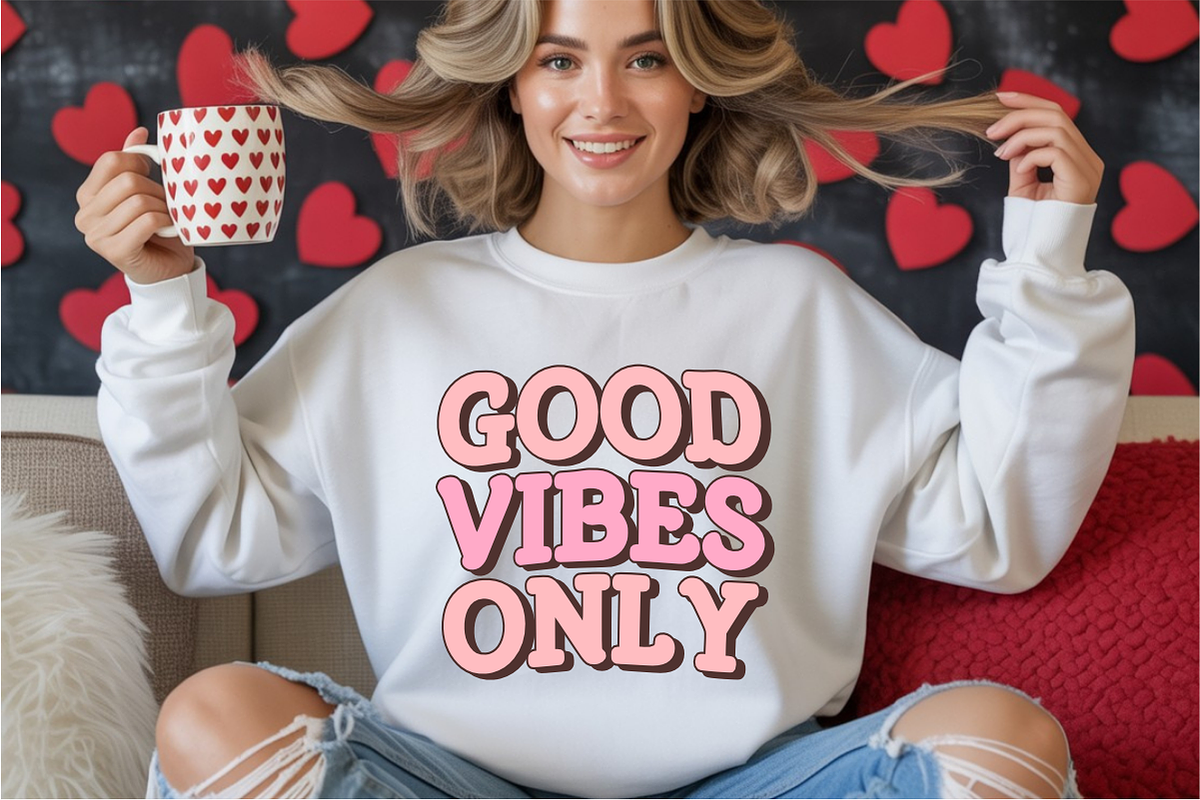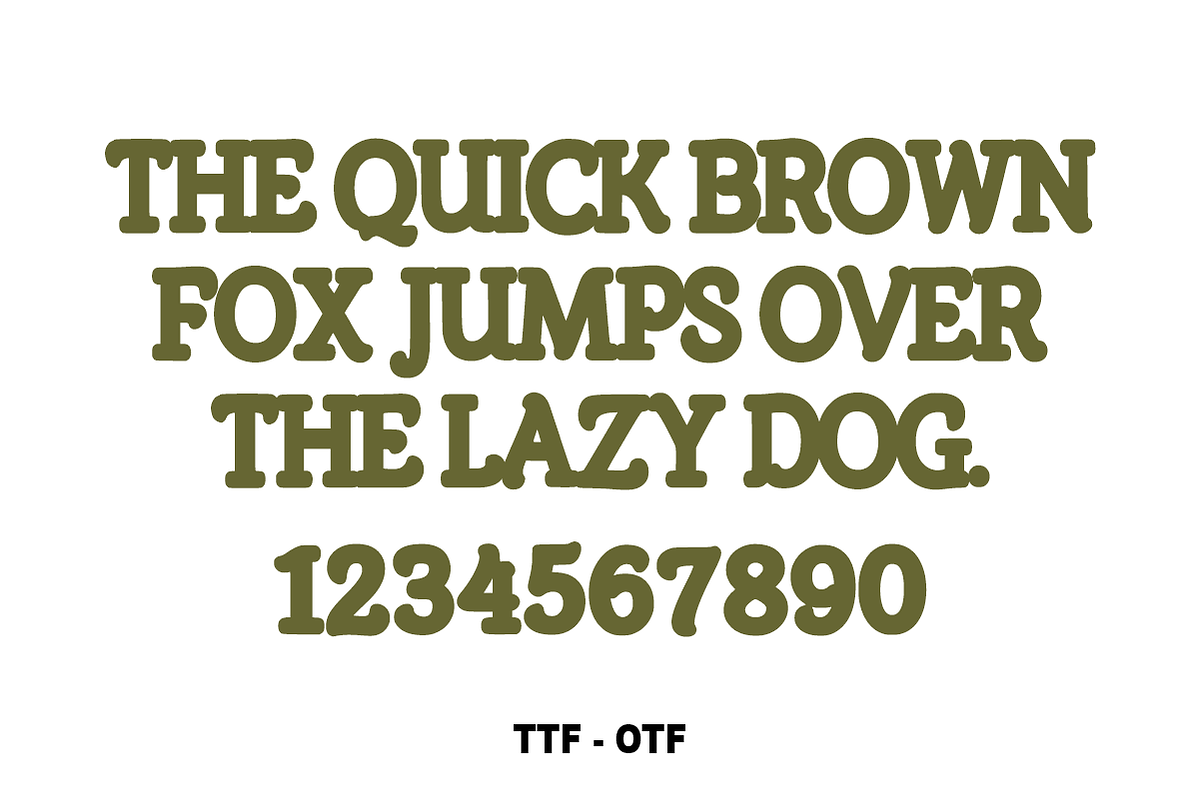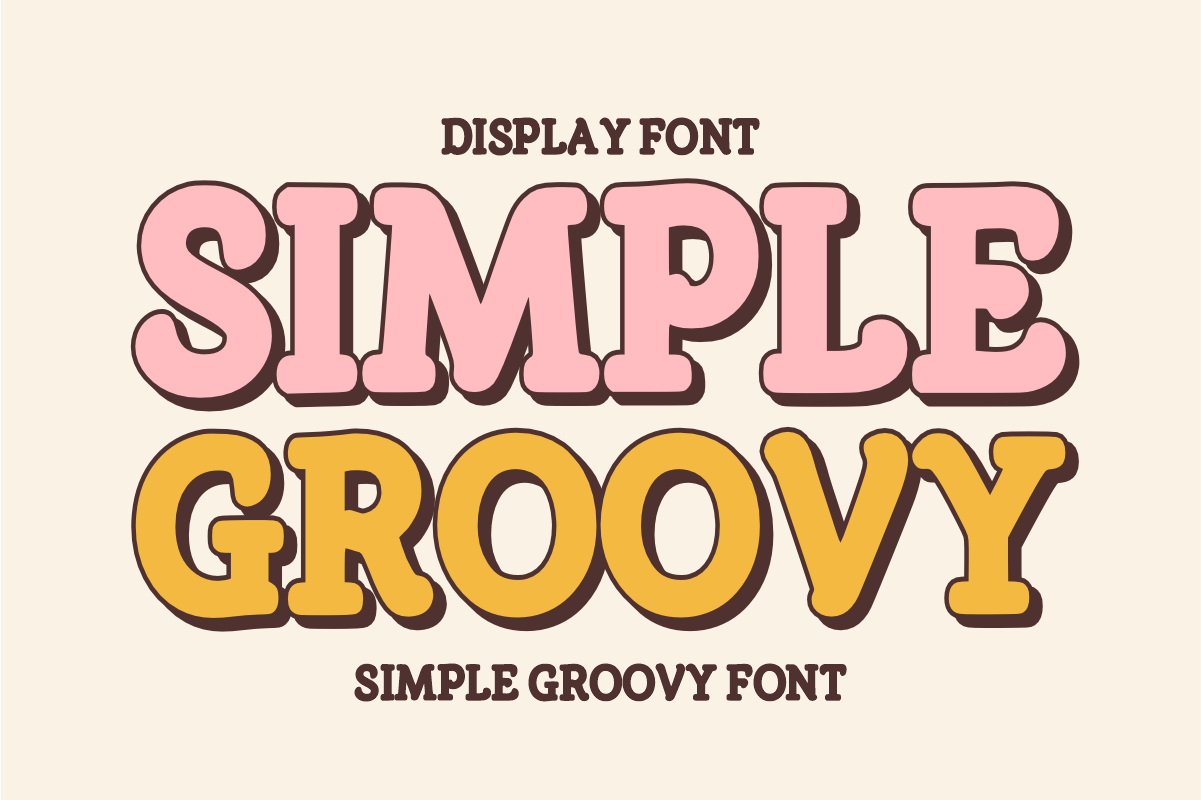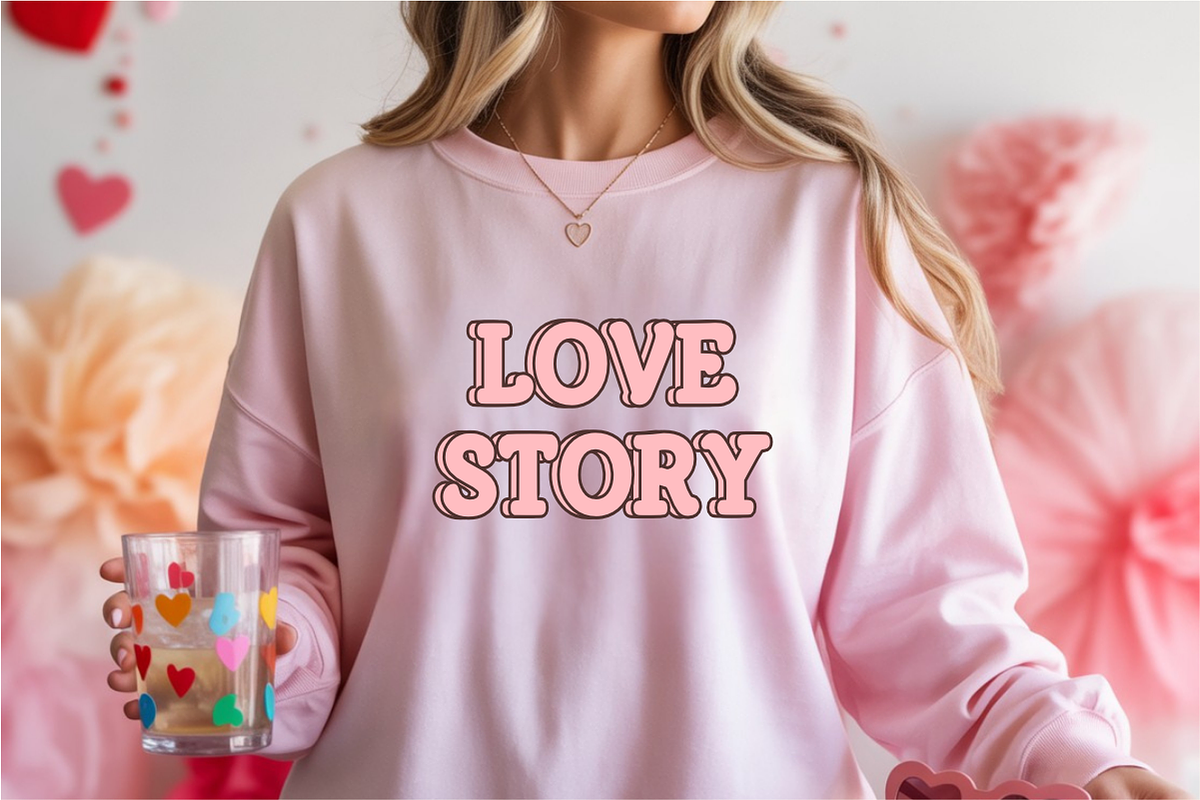
Simple Groovy – Retro Display Font
Simple Groovy – Retro 70s Modern Display Font 🌈✨
Bring back the funk with a modern twist!
Simple Groovy is a playful, bold display font inspired by the iconic psychedelic and retro vibes of the 1970s. Featuring soft curves, expressive serifs, and a high-impact silhouette, this font captures a carefree and nostalgic spirit that is perfect for contemporary designs. Its balanced weight ensures that your headlines remain clear and readable while delivering an instant "vintage cool" aesthetic to any project.
Authentic Retro Vibe: Perfectly mimics the groovy, wavy letterforms popular in vintage posters and vinyl covers.
Eye-Catching Boldness: The thick strokes and unique curves make it an ideal choice for standout headers and logos.
Timeless Versatility: While rooted in the 70s, its clean execution works beautifully for modern "retro-chic" branding and social media content.
Character Set: All-Caps Uppercase Letters (A-Z) with groovy curves.
Numbers & Symbols: Complete set of numerals (0-9) and essential simple punctuation.